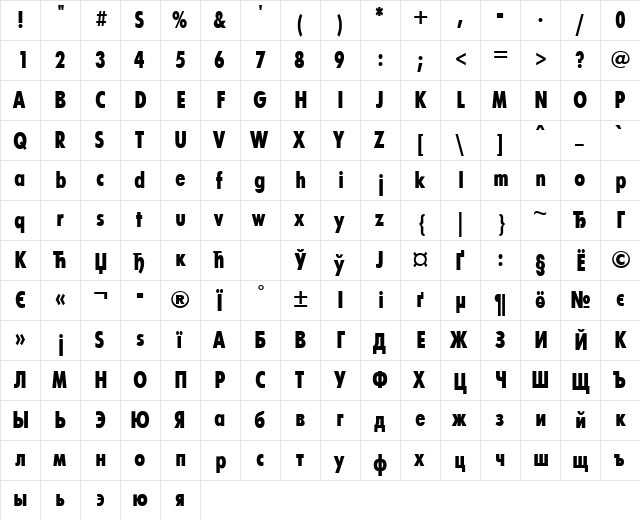
FuturisXCondCTT Regular Font Preview
FuturisXCondCTT Regular
Design Context for FuturisXCondCTT Typeface
FuturisXCondCTT channels digital-age aesthetics through its sharp, structured letterforms — ideal for brands that want to signal innovation. The condensed width makes it efficient for tight spaces without sacrificing legibility.